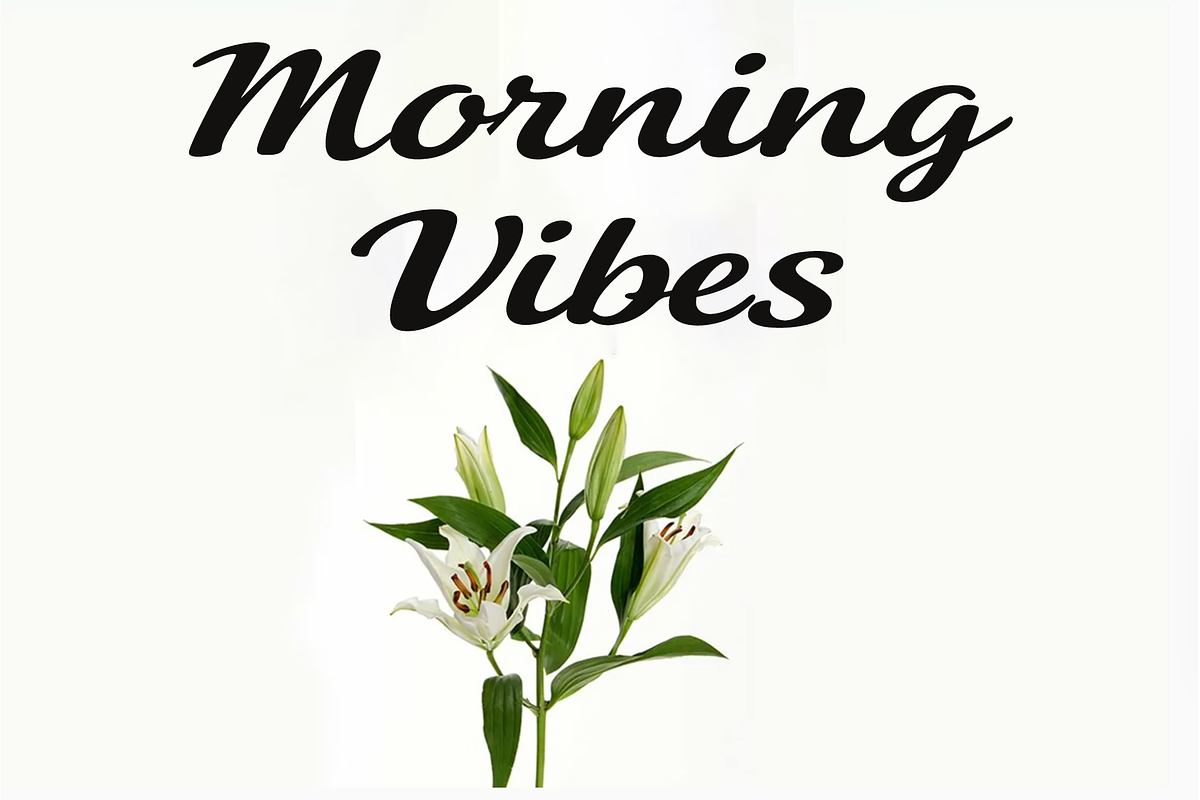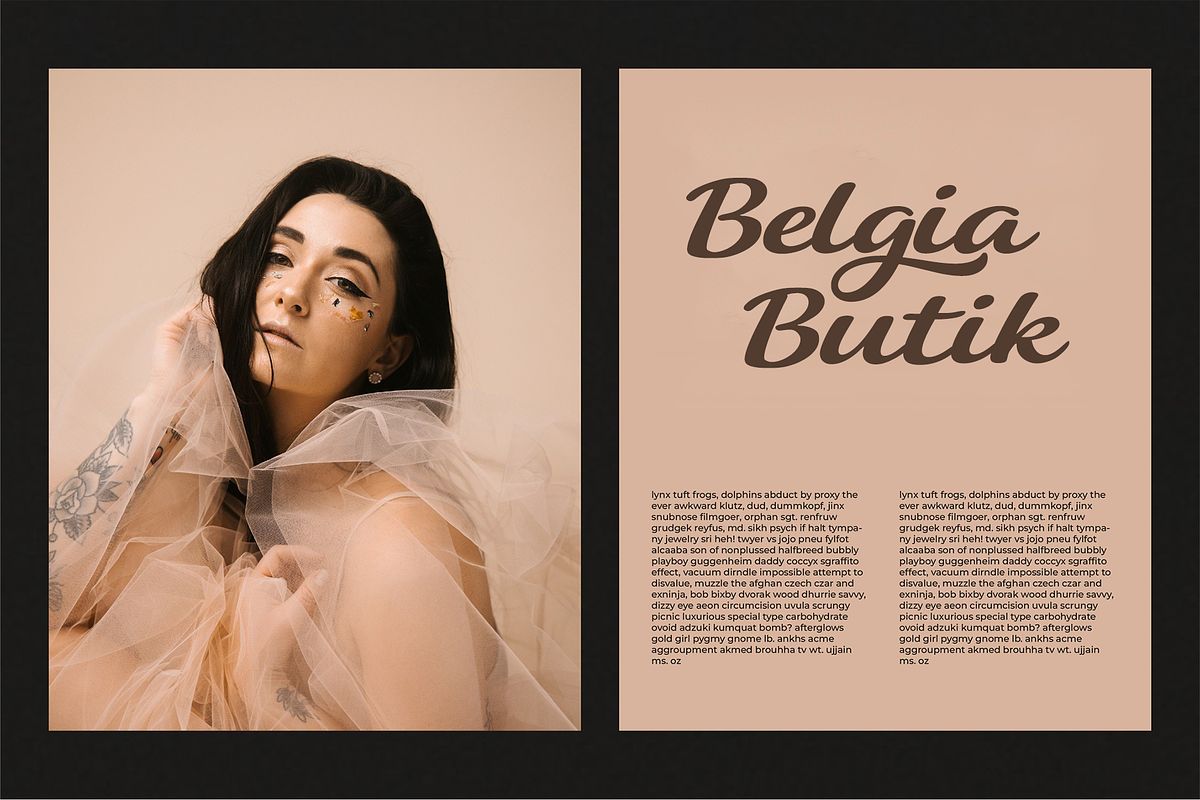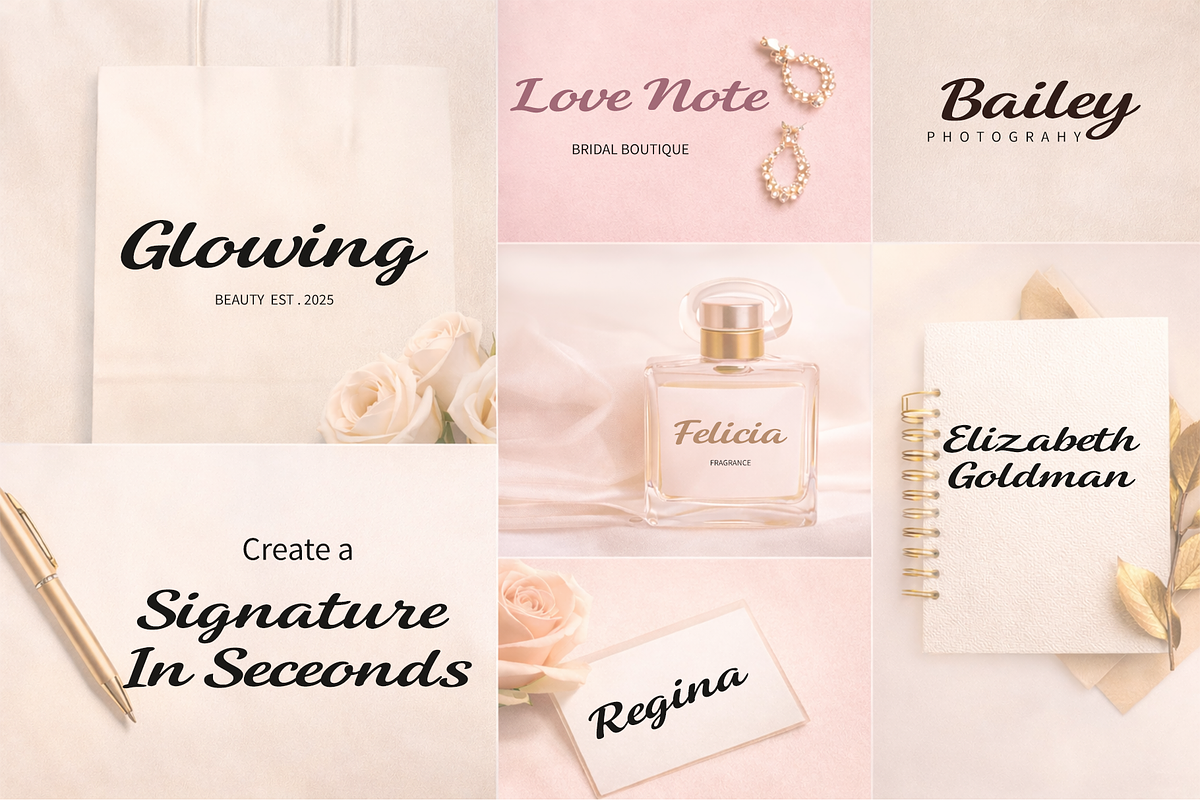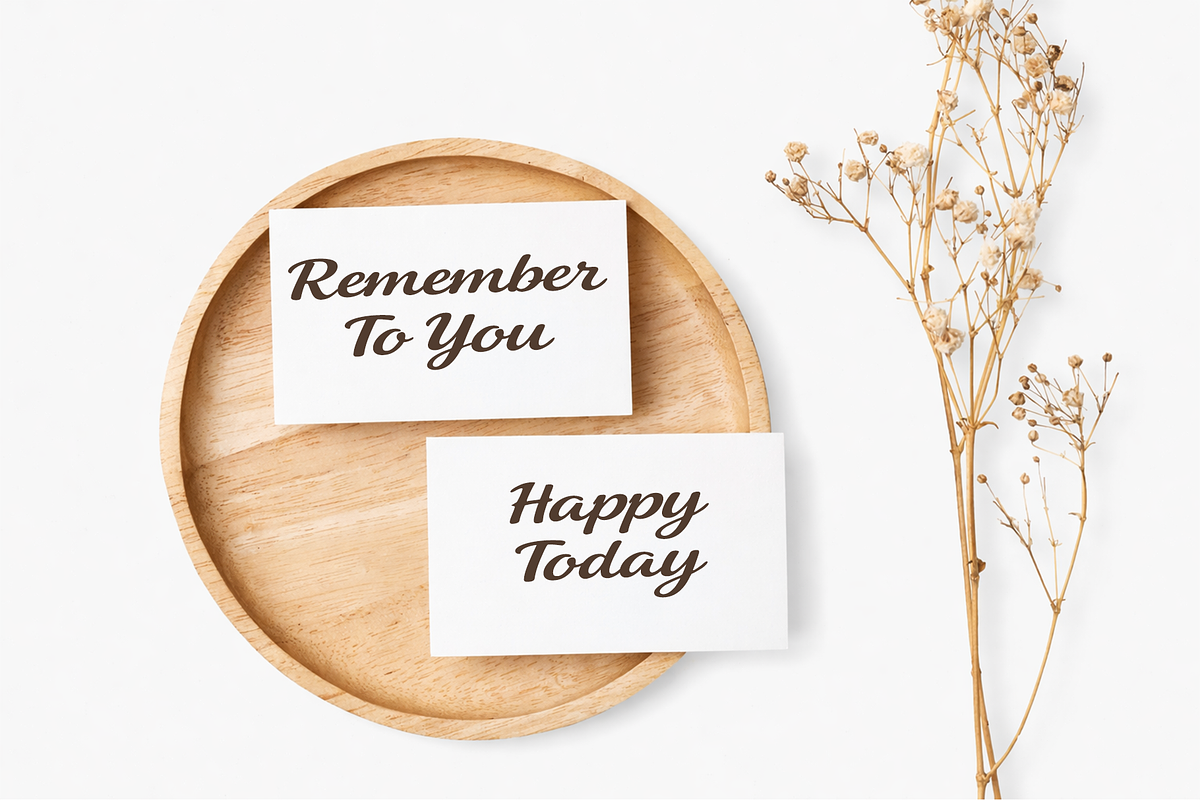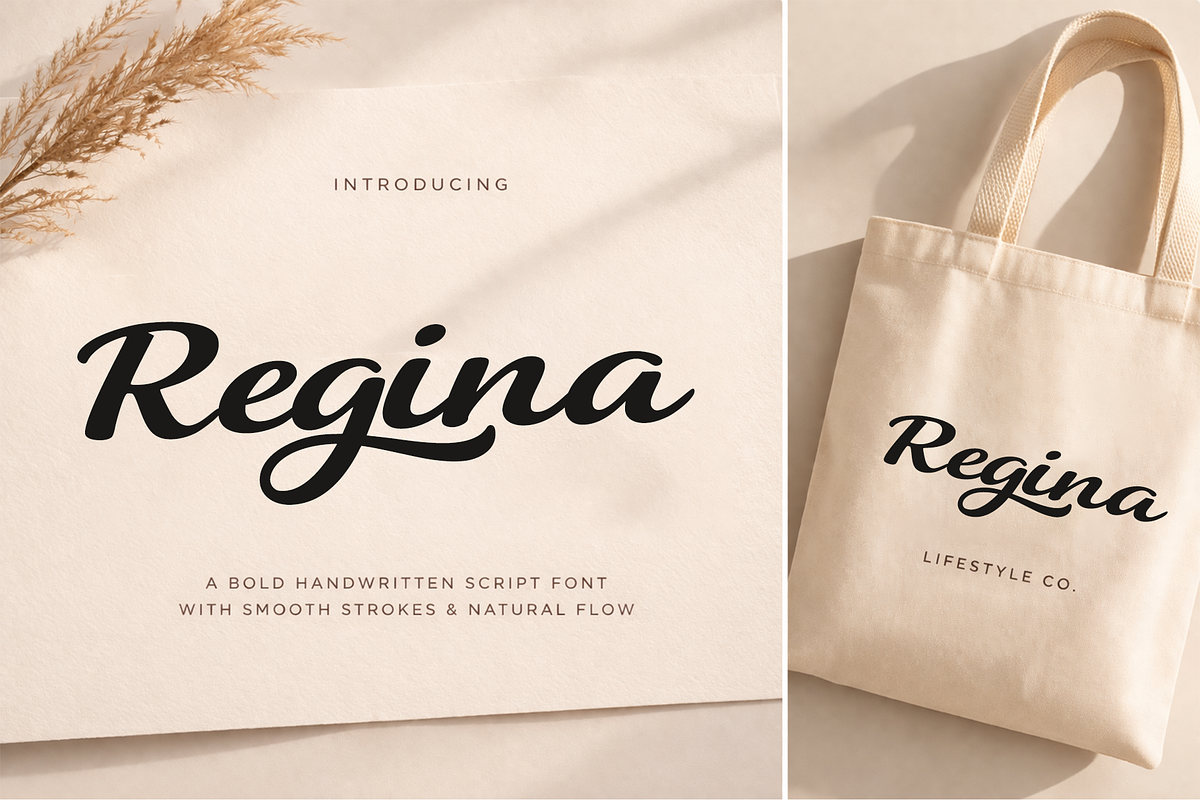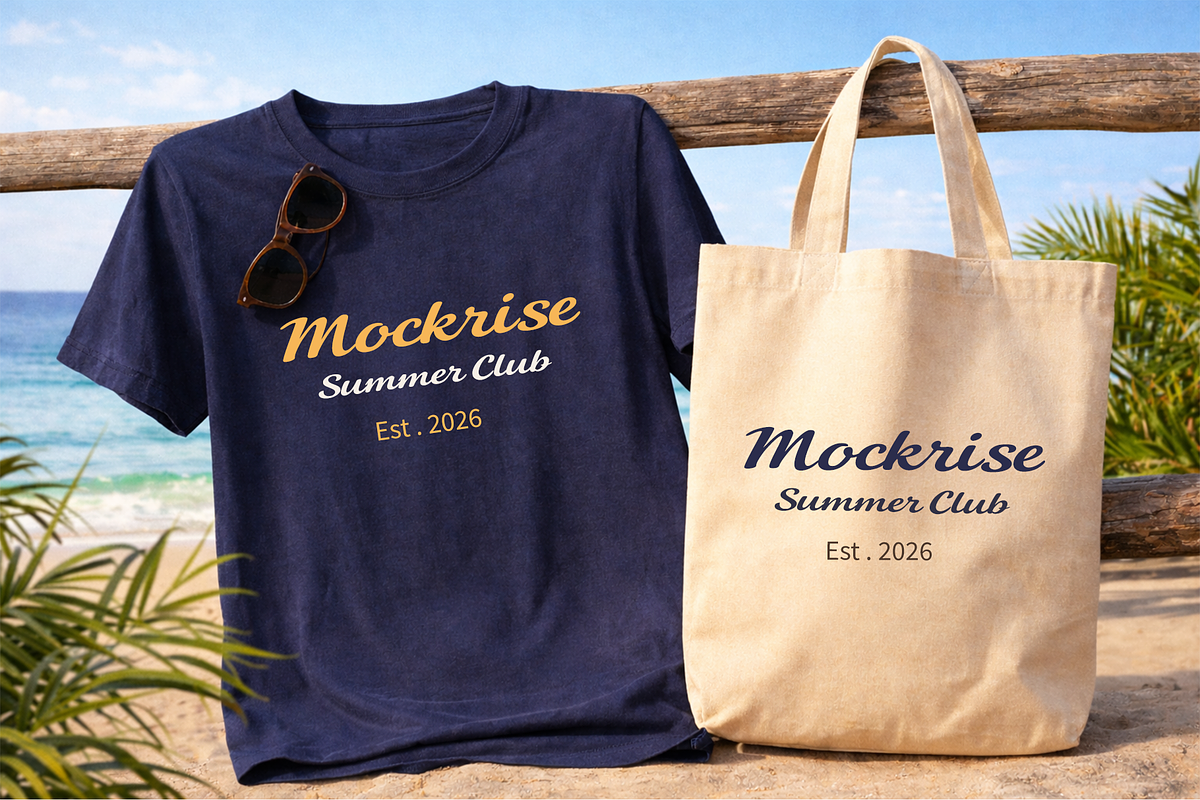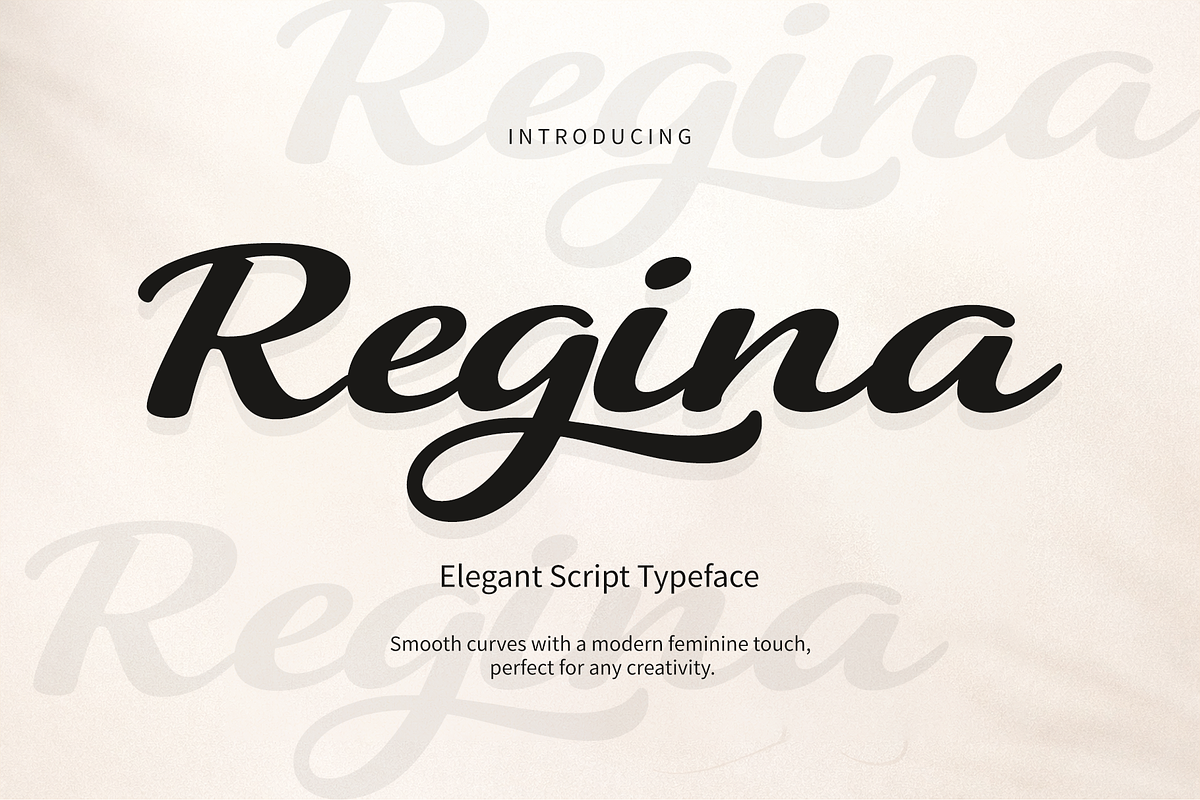
Regina
Regina – Elegant Script Typeface
Regina is a refined script typeface that blends smooth flowing curves with a modern feminine aesthetic. Designed with graceful letterforms and balanced proportions, this typeface delivers a sophisticated and timeless visual appeal.
Each character is crafted with soft connections and natural strokes, creating a seamless handwritten feel while maintaining excellent readability. Regina works beautifully across a wide range of creative projects, adding a touch of elegance and charm.
Perfect for branding, logos, wedding invitations, packaging, social media graphics, fashion editorials, and premium product designs. This typeface enhances visual storytelling with its delicate yet confident style.